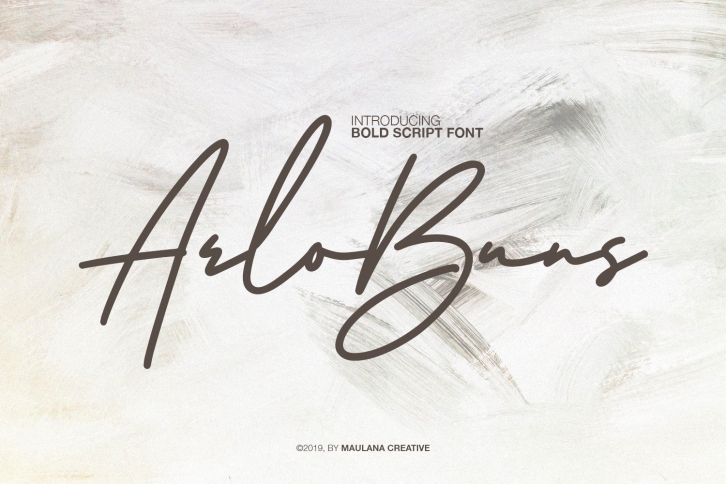
Arlobuns Signature is a beautiful font that was designed by Maulana Creative. It's a great choice for designers and creatives who need such a font. It was released on August 6, 2019 and the file size is 15.41 MB. Arlobuns Signature may give a more youthful, expressive and casual look to your project. It is a very beautiful, refined, elegant, and high-quality font.